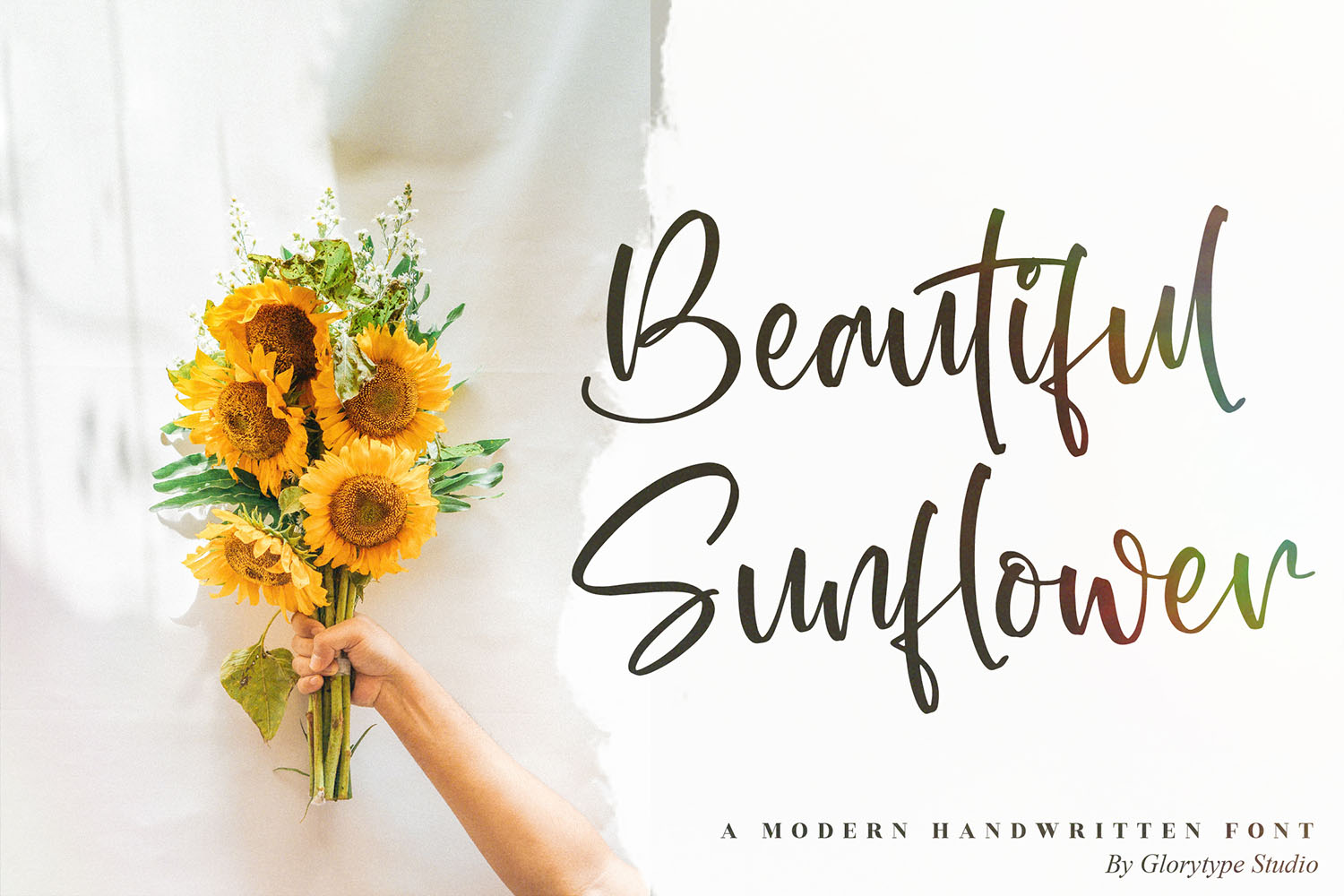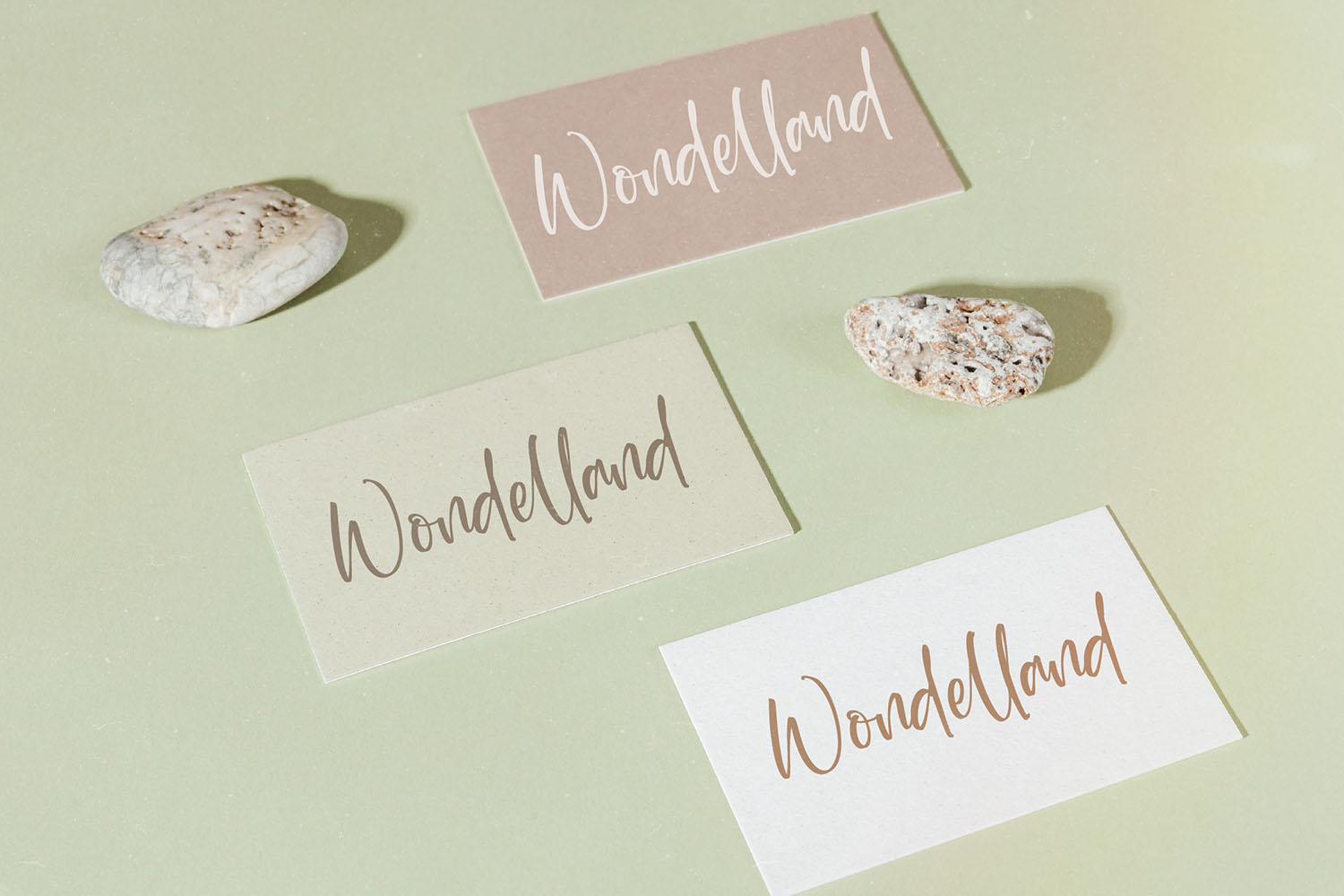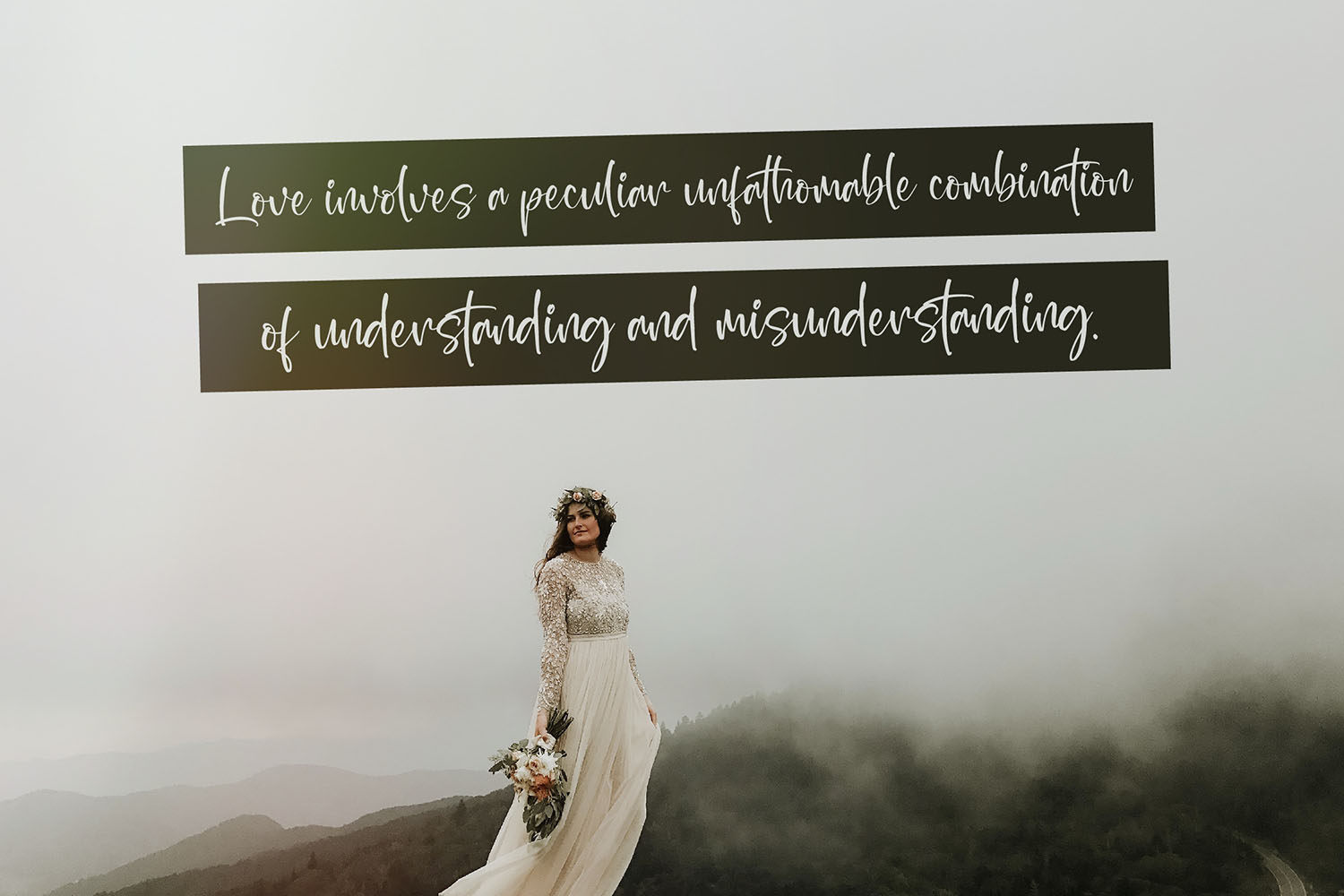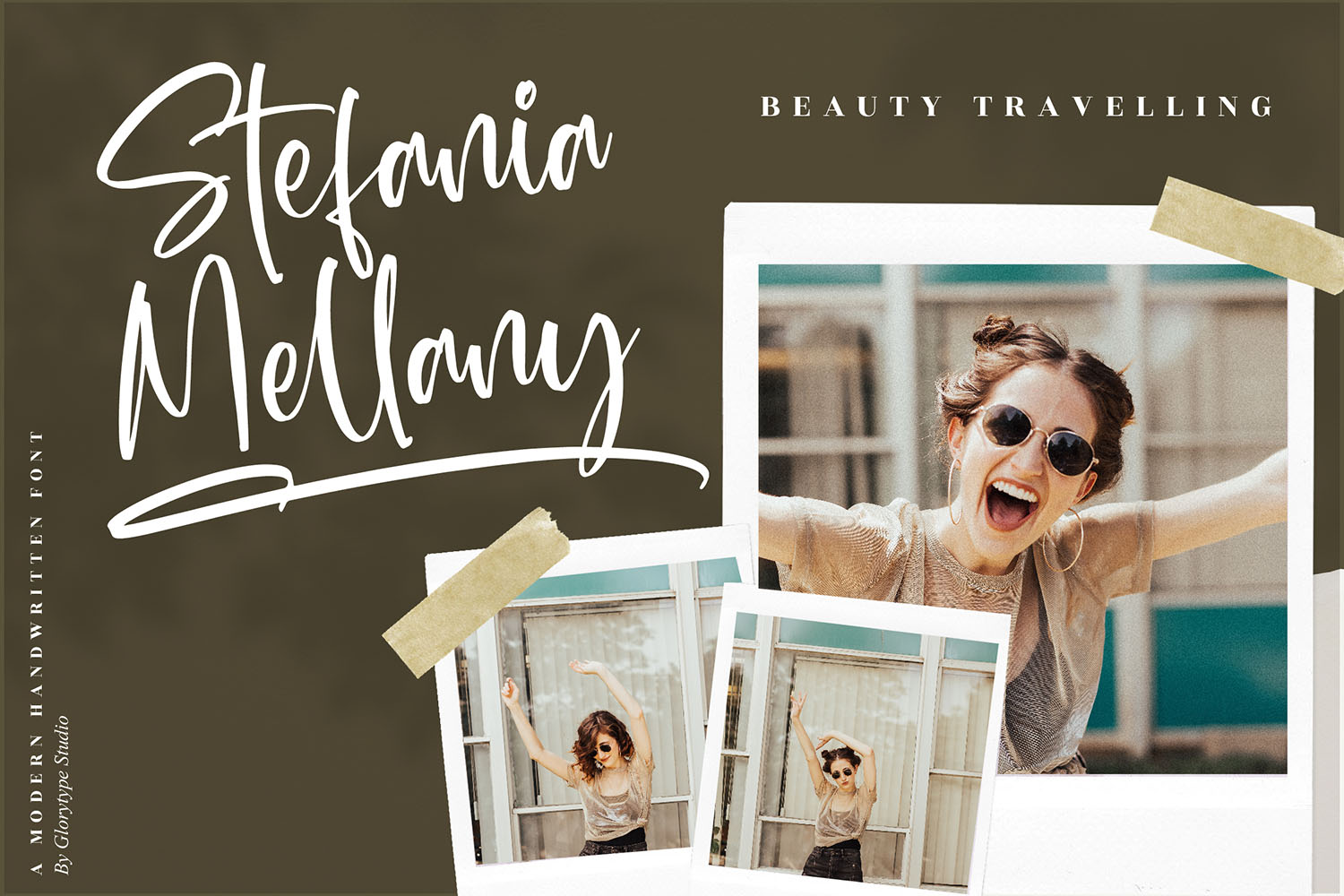
Wondelland Free Font
Discover the charm of Wondelland Free Font, an exquisite handwritten font meticulously crafted to captivate and become your ultimate favorite. With a perfect blend of classy calligraphic influences and a touch of contemporary freshness, this font promises a timeless appeal for a variety of design needs. This free typeface was designed by a talentedΒ Glorytype Studio. If you like it don’t forget to check out the full version.